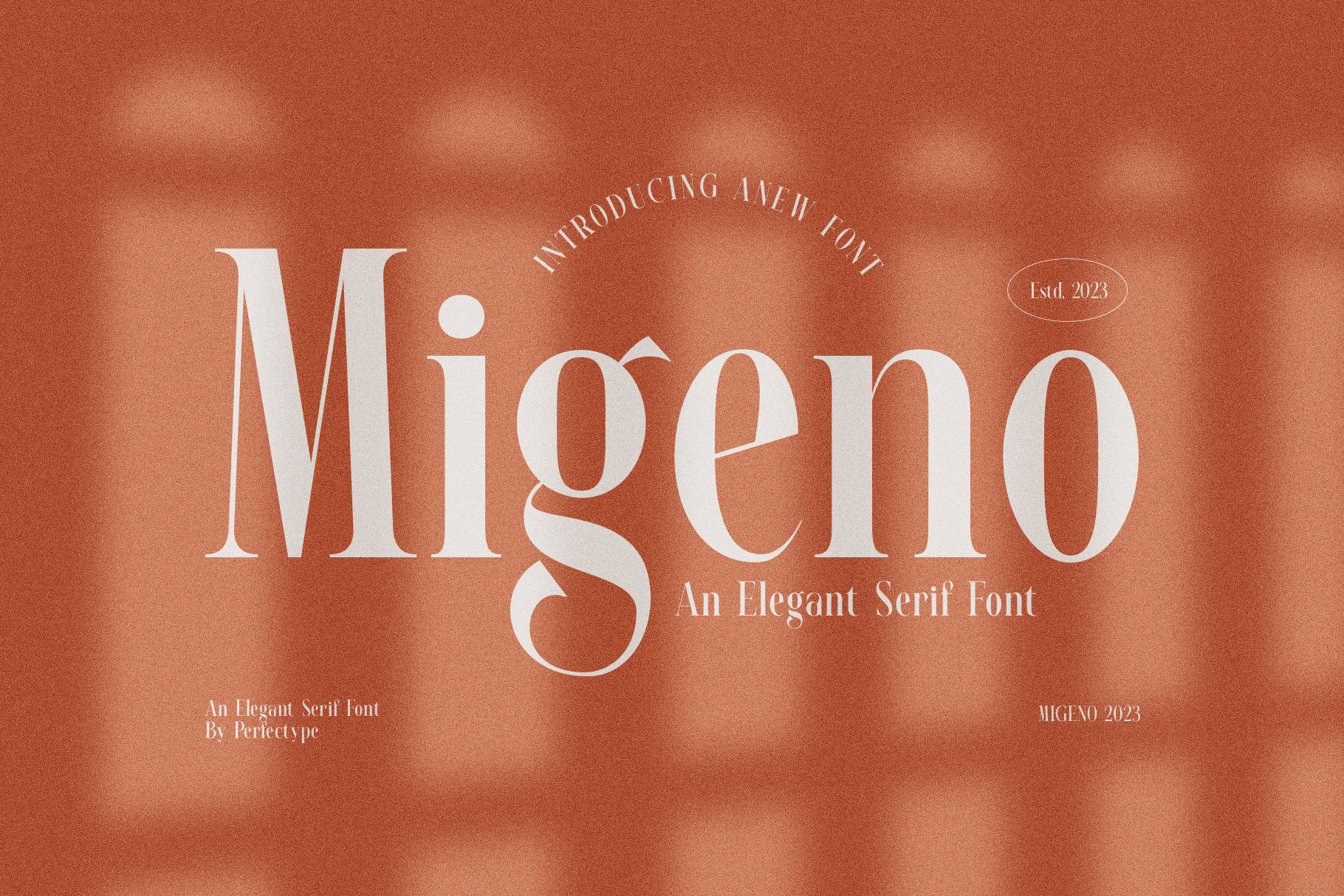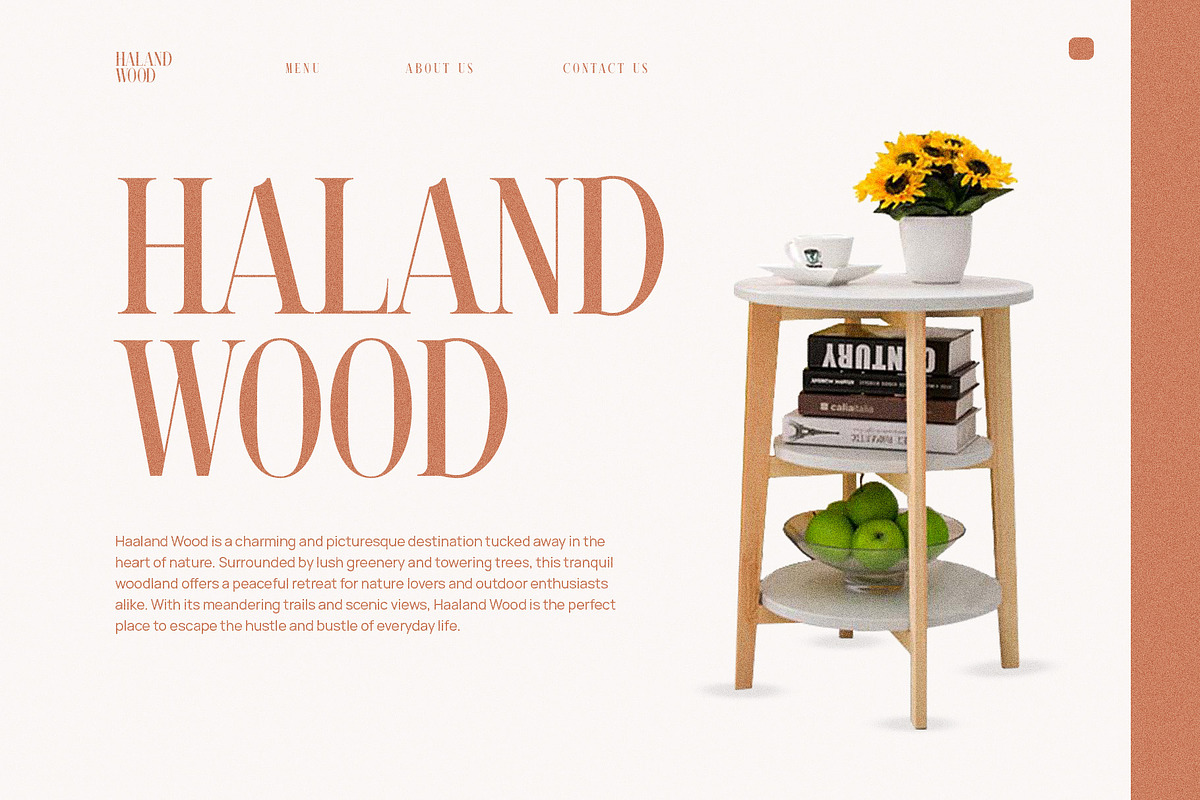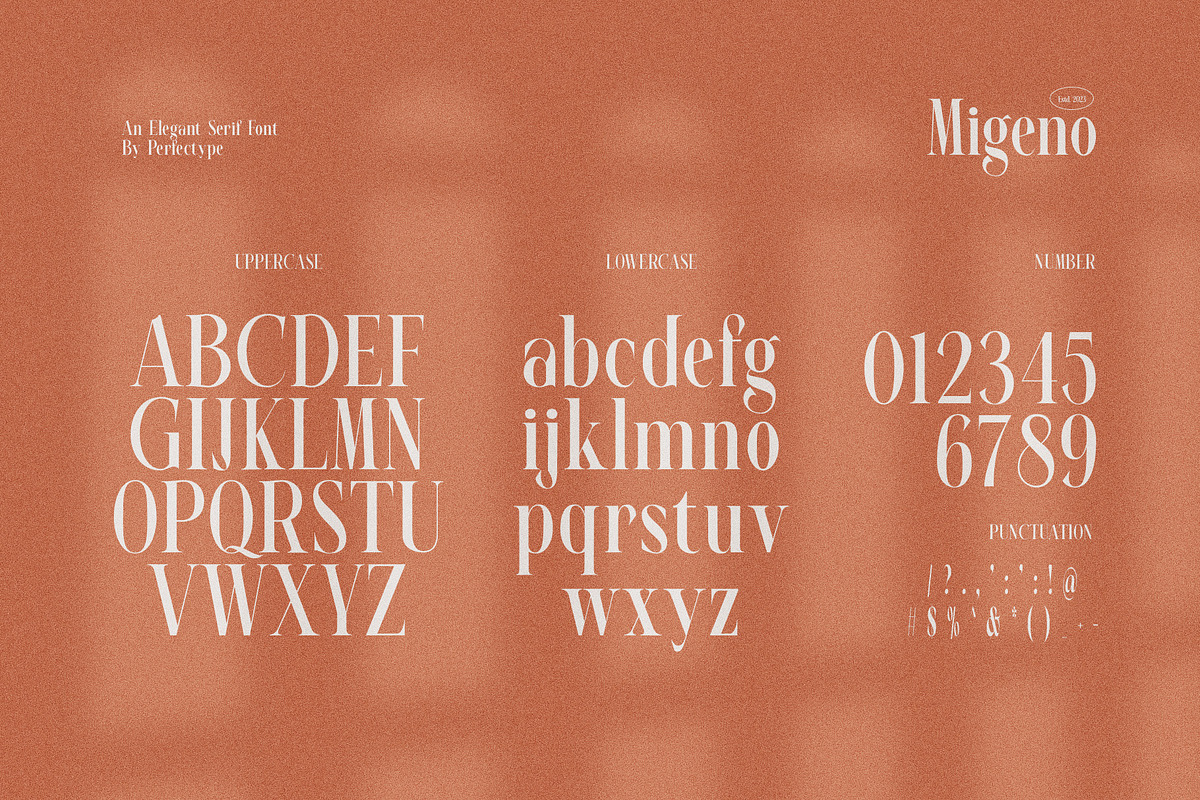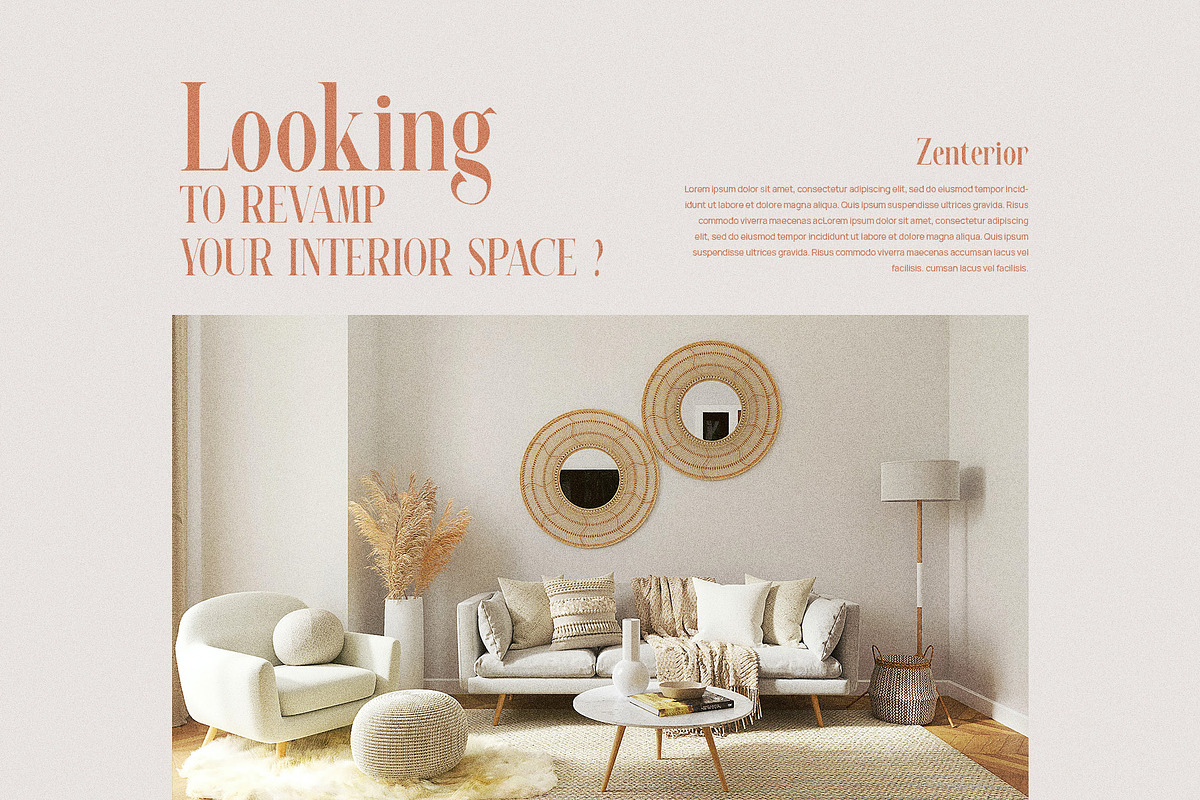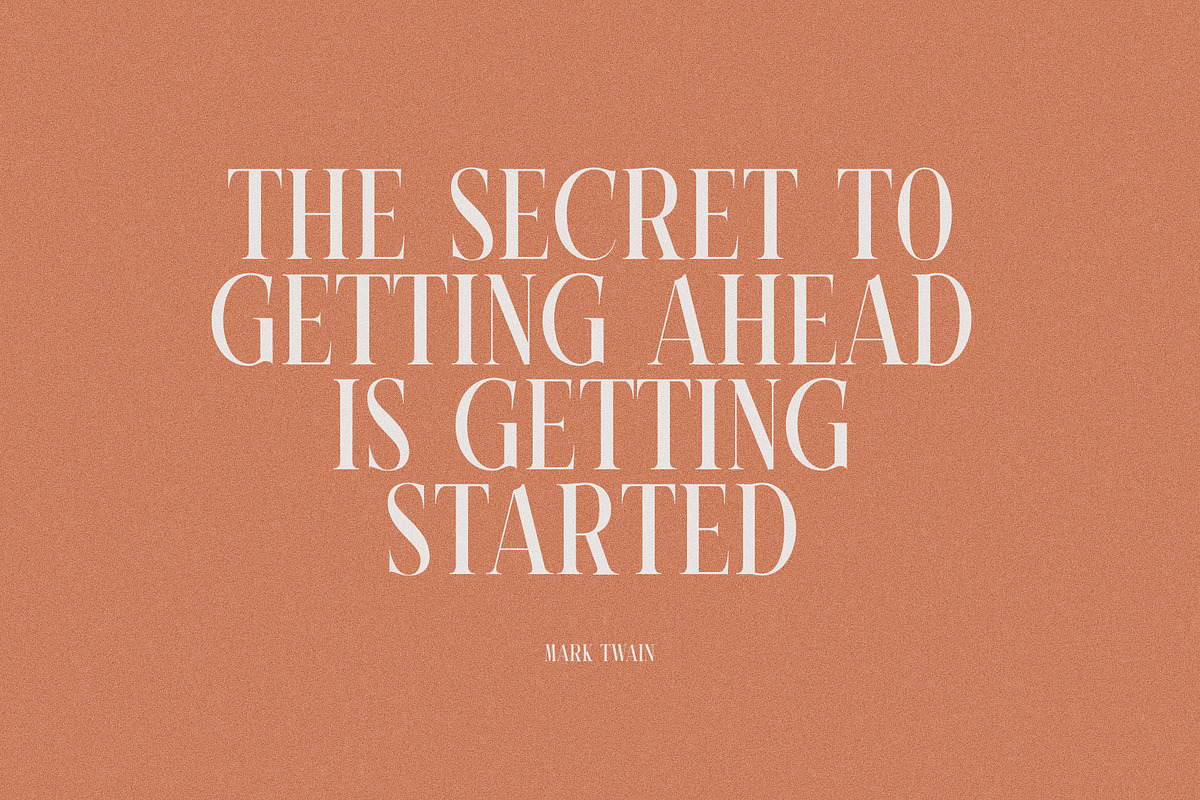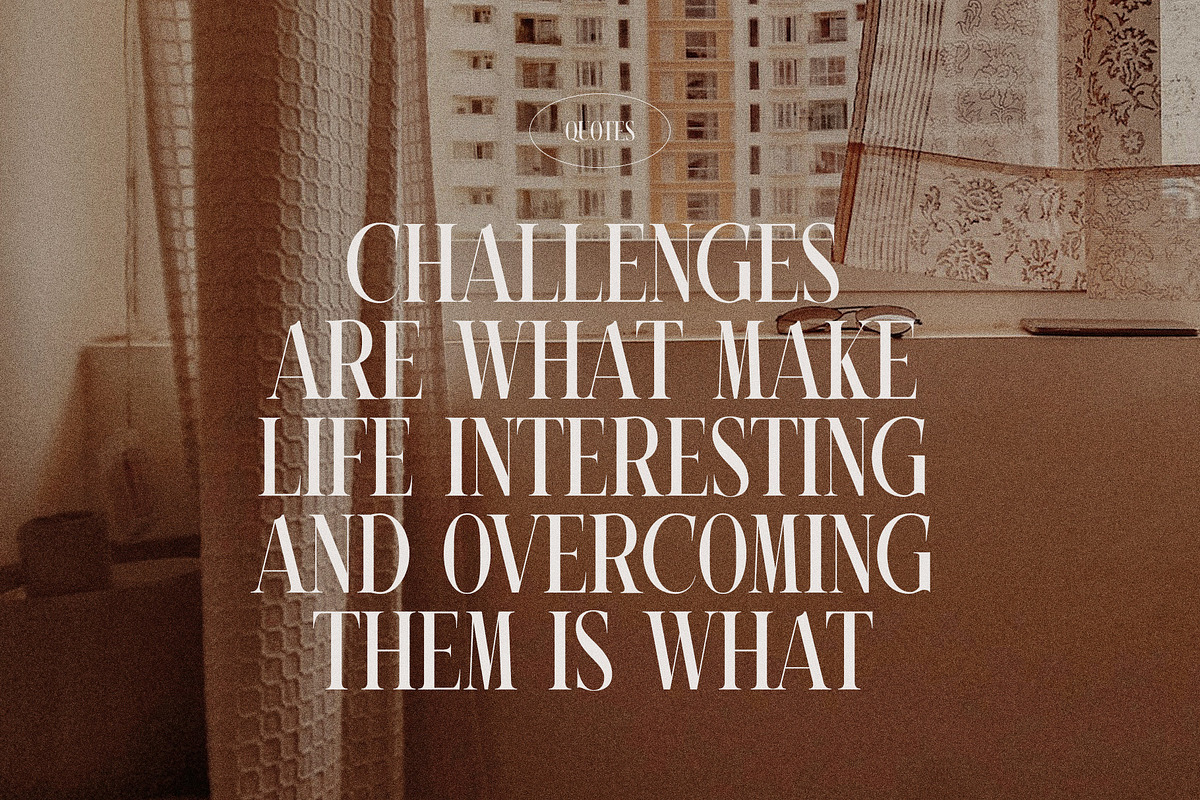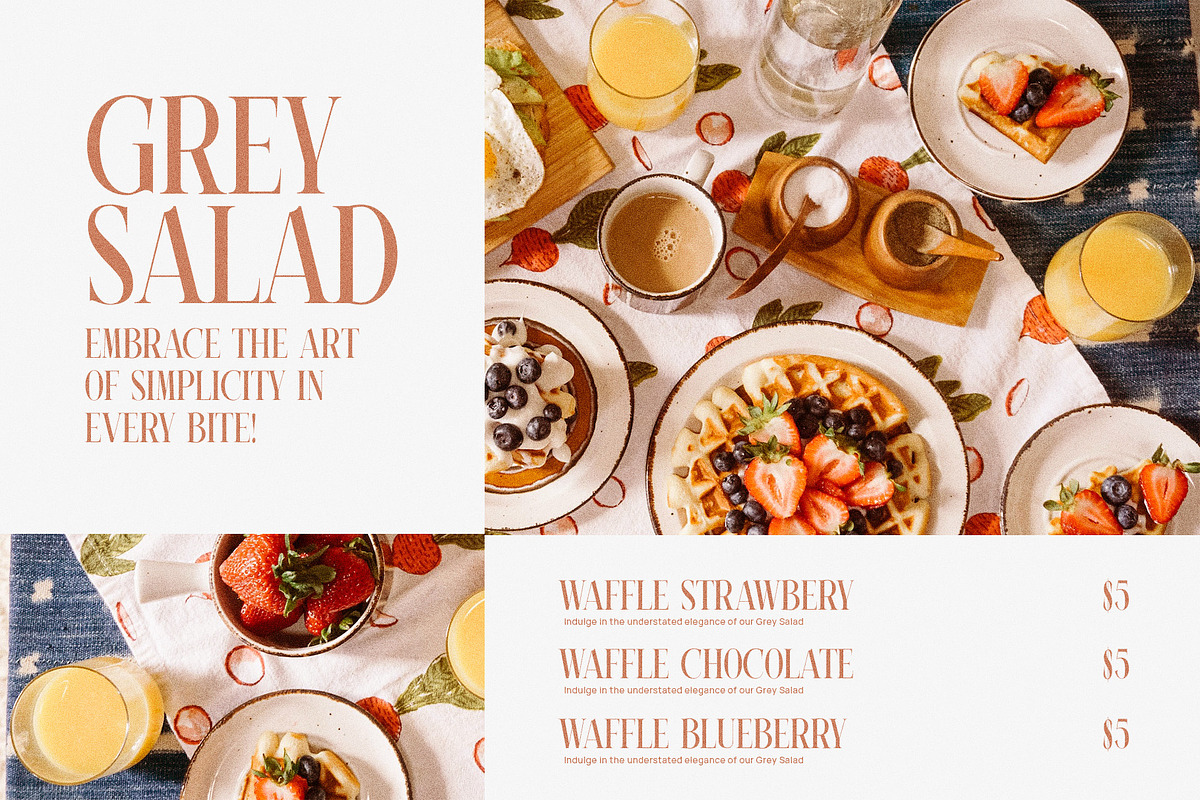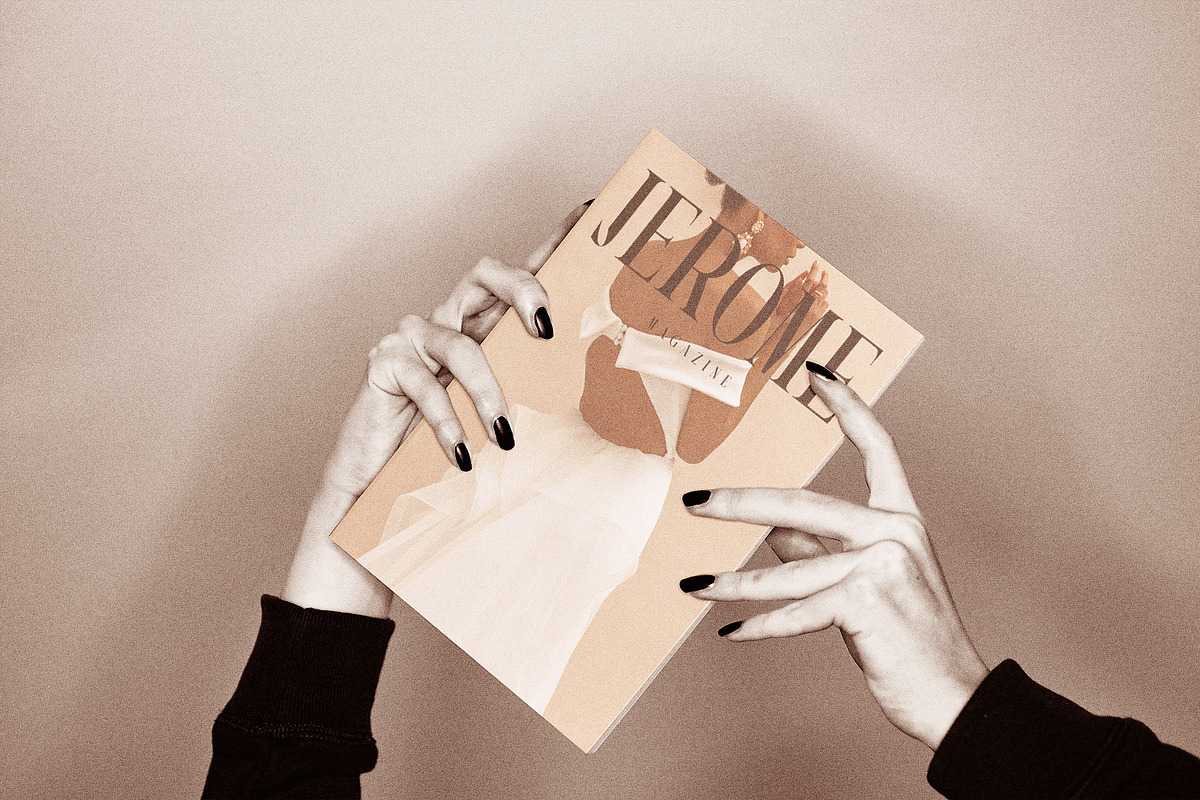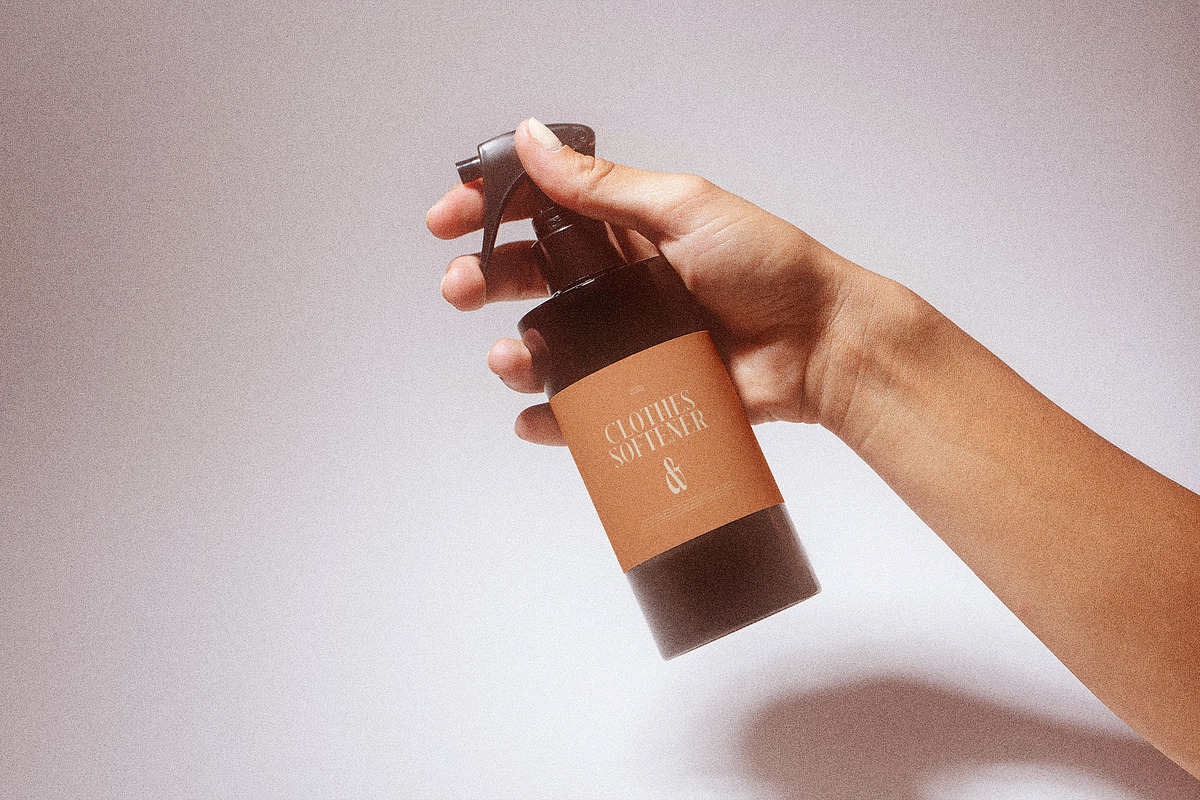
Migeno Elegant Serif Font
Migeno Elegant Serif Font is a serif font that presents elegance. It gives a touch of luxury to any design because of its minimal concept. Not symmetrical doesn’t mean this font doesn’t maintain balance. The simple letterforms also make it easy to read and understand. With a little touch of smooth serifs, it brings a joy to any design it presents. Due to its luxury touch and minimal design, this font is best for branding or logo designs. Thanks to every element provided to make this classy font suitable for various purposes. Wedding designs, ads, branding, logos, and product designs are some products that need this serif font. The simple main concept makes the Migeno Elegant Serif Font provide a lasting image. Moreover, the consistency in the letter design further shows the character of this font. If you want your design to look minimal and known to many people, using this font is the right step.